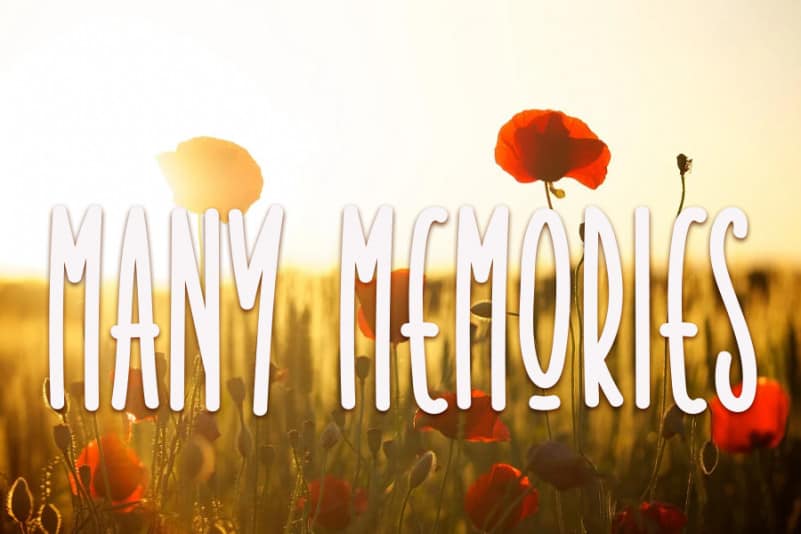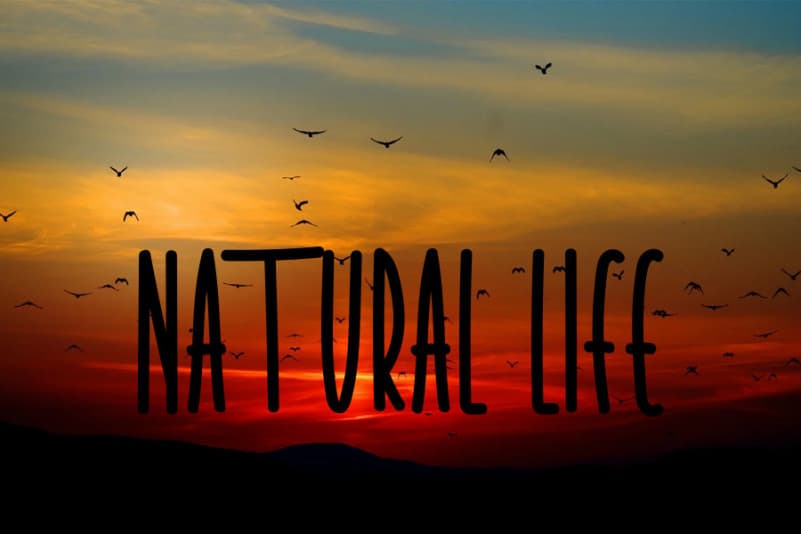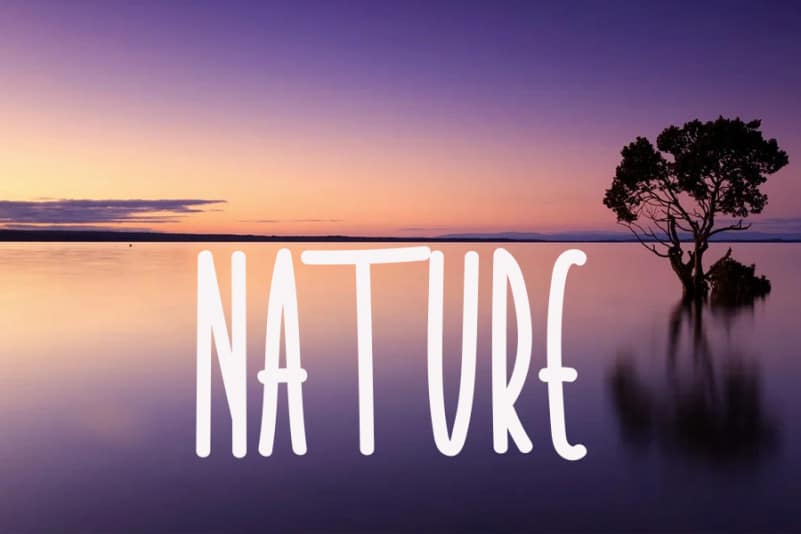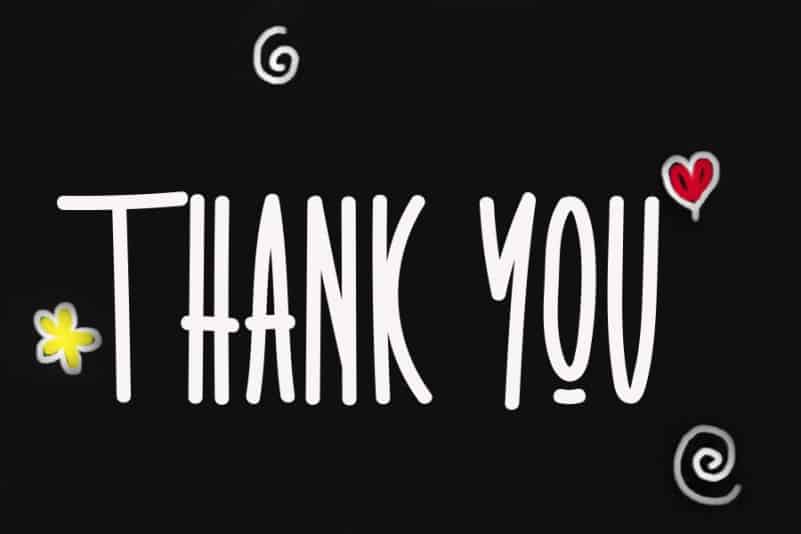
Happy Love Display Font
Happy Love Display Font is a simple and natural display font. This original look will appeal to a wide range of crafty ideas, from letterheads and titles, to stationery.
Happy Love Display Font is a very talented product for you to use,
Latest letters that can be used for various products, invitations, wall hangings, weddings, and more.